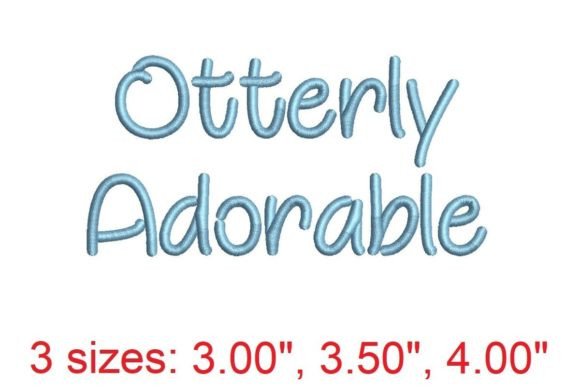
Otterly Adorable Embroidery Font Review
As an embroidery designer with years of experience in custom apparel and boutique brand projects, I've had the chance to work with a variety of Creative Fabrica embroidery files. One that stood out for its charm and versatility is the Otterly Adorable Embroidery Font. This design has the potential to elevate a wide range of apparel items, from simple t-shirts to more intricate sweatshirts and tote bags.
The First Impression: Playful and Premium
From the moment I opened the otterly adorable embroidery font, I was struck by its visual personality. The font has a whimsical, almost hand-drawn feel that exudes playfulness without being overly childish. It’s perfect for adding a touch of cuteness to any project, whether it's for a children's line or a more mature, lifestyle-oriented collection.
The stitching mood is light and airy, with enough detail to make the font stand out on fabric but not so dense that it becomes overwhelming. The decorative strength is just right—enough to make a statement without overpowering the garment. Overall, it feels premium, yet approachable, making it ideal for small shop products and handmade items alike.
Where to Use Otterly Adorable Embroidery Font
This font shines on a variety of apparel pieces. On neutral sweatshirts, it adds a soft, charming element that doesn't clash with the base color. On pastel hoodies, it brings a sense of warmth and personality. For dark apparel, the font stands out beautifully, especially when paired with contrasting thread colors.
It also works well on oversized garments, where the font can be placed strategically to add visual interest without feeling cramped. T-shirt embroidery benefits from its simplicity, while denim jackets and tote bags gain a unique, customizable flair. Seasonal outfits, like cozy sweaters or holiday-themed items, can leverage the font's playful nature to create a cohesive look.
Sweatshirt Embroidery and Hoodie Design
When used on sweatshirt embroidery, the otterly adorable embroidery font looks best on the chest or sleeve. Its size allows for clear visibility without dominating the space. For hoodie designs, placing the font on the back or sleeve offers a balanced aesthetic, especially when paired with other elements like logos or patterns.
Tote Bag Design and Boutique Merchandise
On tote bags, the font can be used as a central motif or as part of a larger design. Its clean lines and gentle curves make it suitable for both minimalist and more elaborate layouts. As a boutique merchandise piece, it adds a personal, artisanal touch that appeals to customers looking for unique, handmade products.
Performance on Different Fabrics and Surfaces
One of the key considerations when using this font is how it performs on various fabrics. For stretchy materials like fleece or ribbed fabric, the font holds up well, provided the stabilizer is chosen carefully. Dense stitch areas may require additional support to prevent puckering or distortion.
On dark garments, the font is highly visible, especially when using white or bright thread colors. Curved surfaces, such as sleeves or the back of a hoodie, may require slight adjustments in placement to ensure the font remains legible and aesthetically pleasing. Tiny lettering can be challenging, so it's important to test the design at different sizes before production.
Impact on Apparel Value and Brand Identity
The otterly adorable embroidery font can significantly enhance the value of a finished product. Its charming design helps create a strong brand identity, especially for businesses targeting a youthful or family-oriented audience. When used consistently across different items, it builds visual recognition and customer trust.
For Etsy sellers and small shop products, this font offers a way to stand out in a crowded market. Its professional presentation and consistent quality help elevate the overall look of a collection, making it more appealing to buyers who appreciate thoughtful design.
Practical Designer Notes
Before finalizing any project with this font, I recommend testing it on scrap fabric to see how it looks in real life. Checking the stabilizer choice is crucial, especially for stretchy or delicate materials. Thread color contrast should be considered to ensure the font stands out appropriately.
Confirming the hoop size and stitch density will help avoid issues during the embroidery process. Testing on similar garment fabric can reveal any potential problems, such as puckering or stretching. Comparing placement options can also help determine the most effective layout for each item.
As an experienced designer, I would definitely recommend this font for small shop products and handmade items. Its ability to blend into different styles while maintaining its own character makes it a reliable choice for anyone looking to add a touch of whimsy to their work.